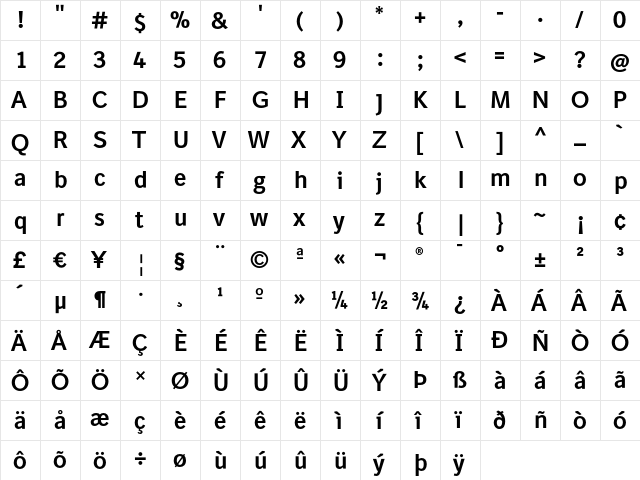
BISans Bold
Design Context for BISans Typeface
BISans takes a measured approach to typography — its balanced proportions and neutral character make it a reliable workhorse for both digital and print work. Its bold stroke weight gives it real presence on the page.
Pro Tip: Use BISans in both headline and body roles to test its range before committing to a single application.